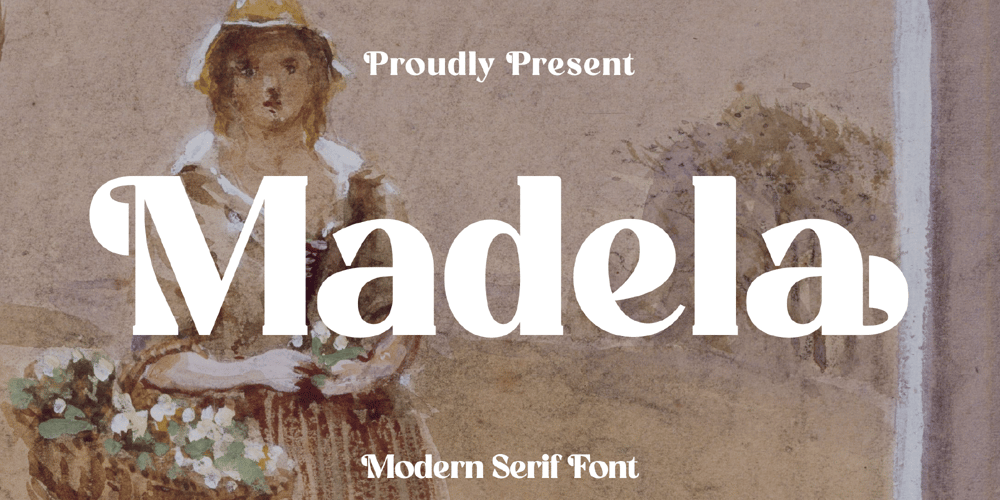
Madela
Madela font
Madela Font Family was designed by Heru Utama Putra and published by Letterena Studios. Madela contains 2 styles and family package options. Madela is a bold and thick lettered serif font. It is PUA encoded which means you can access all of the glyphs and swashes with ease! Add it confidently to your favorite creations and let yourself be amazed by the outcome generated.